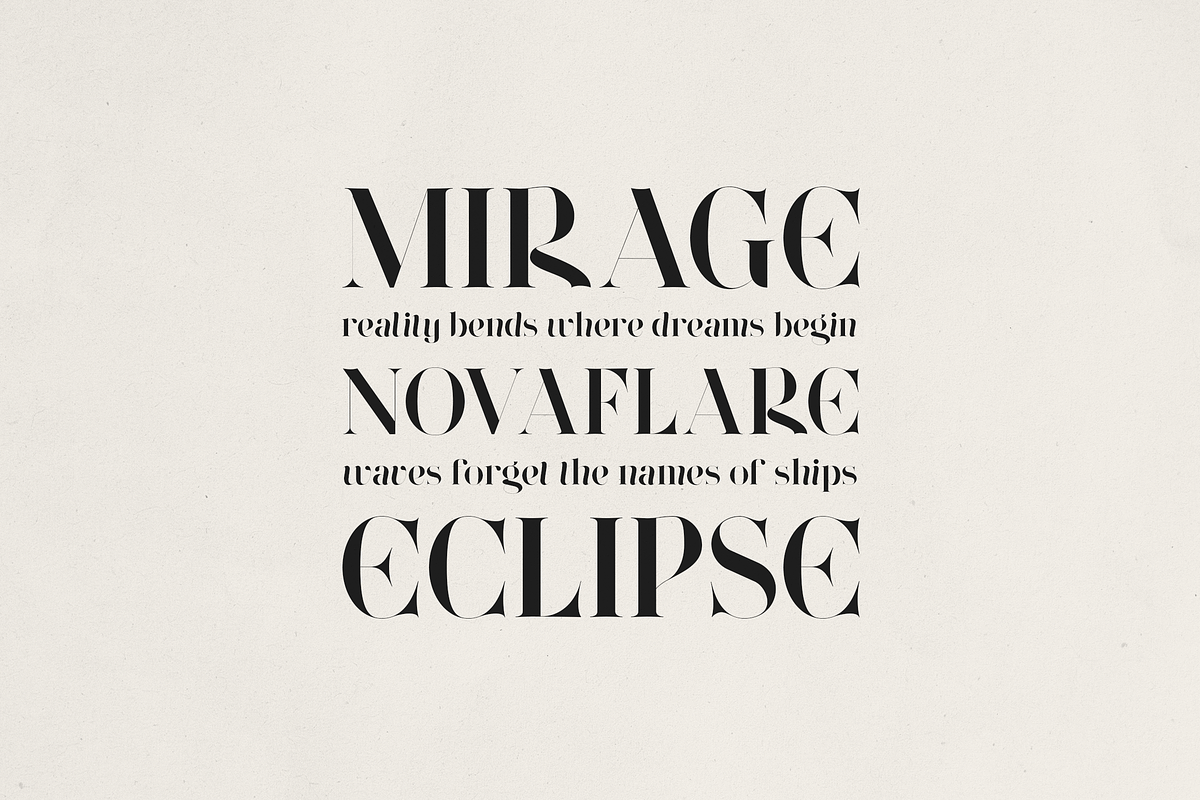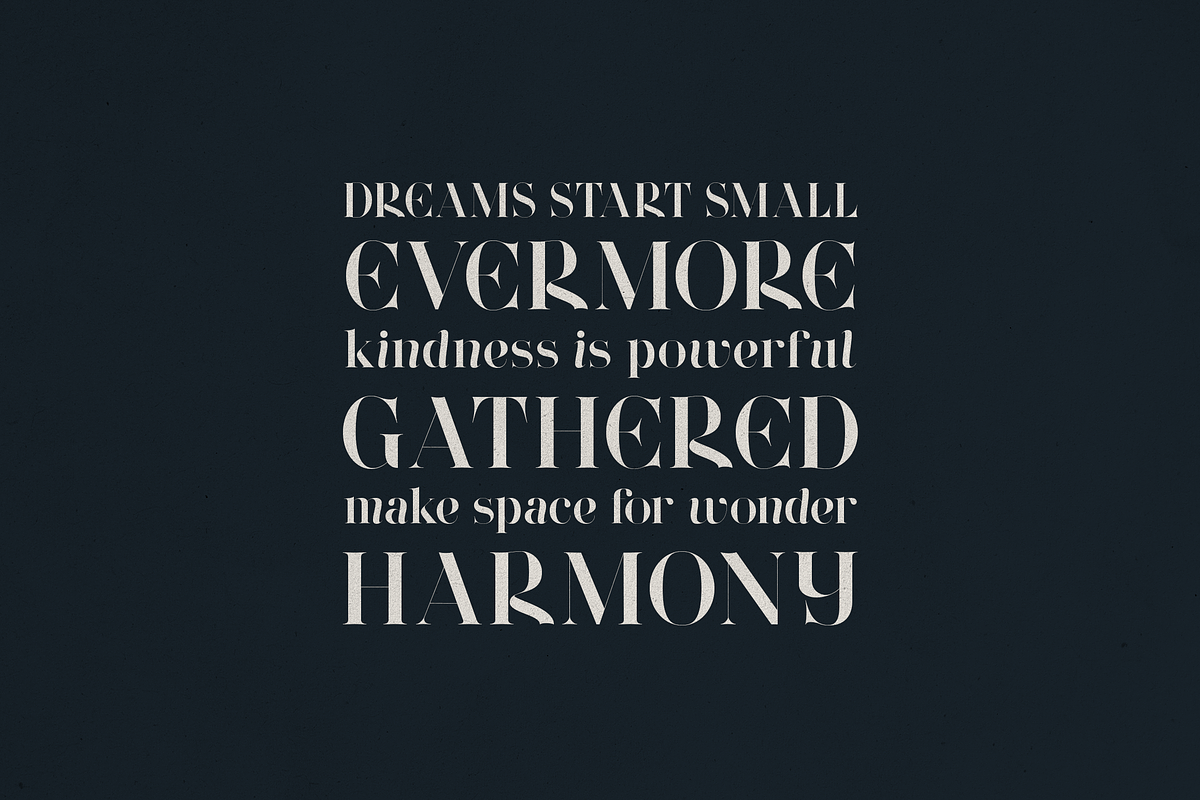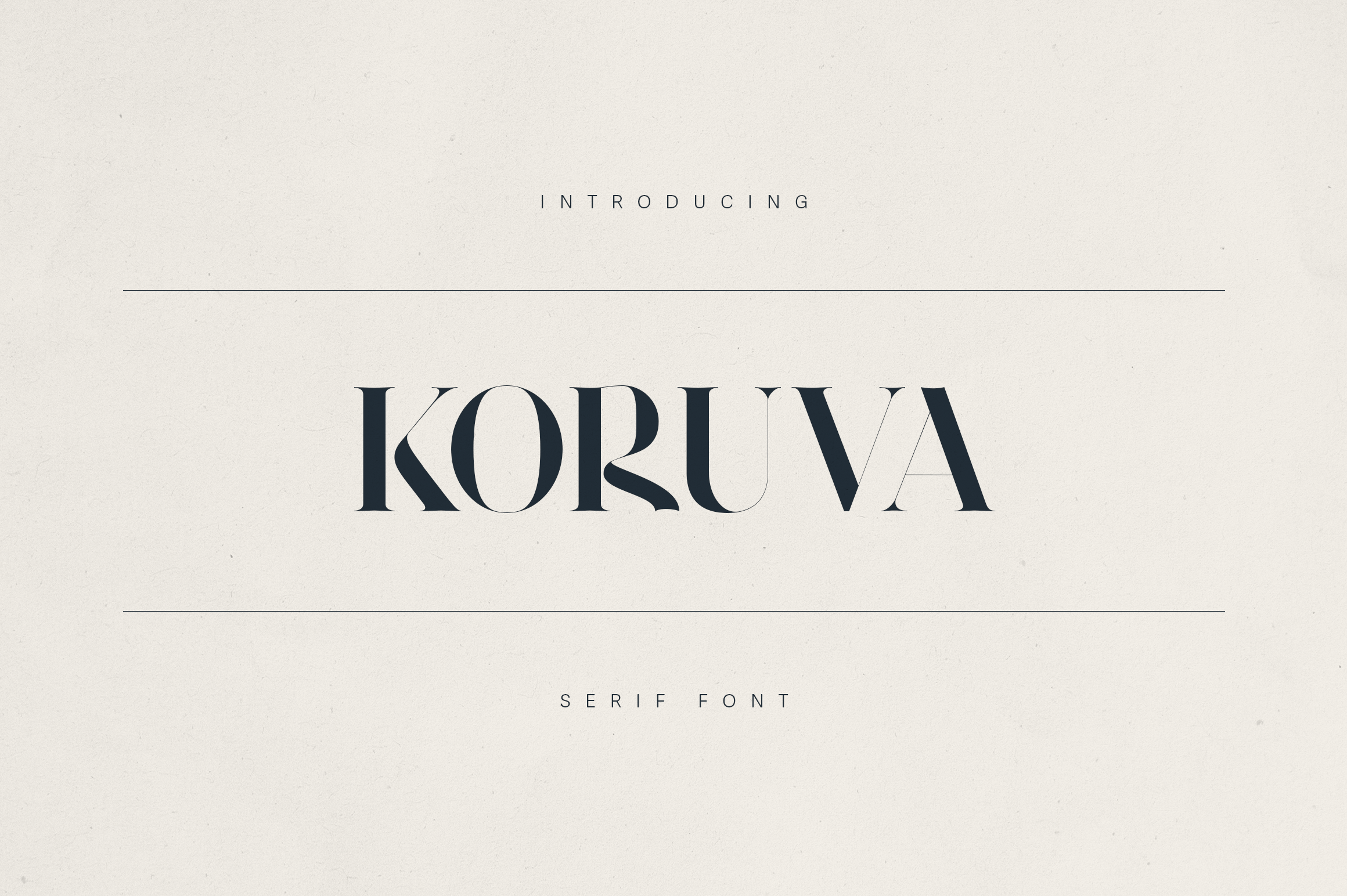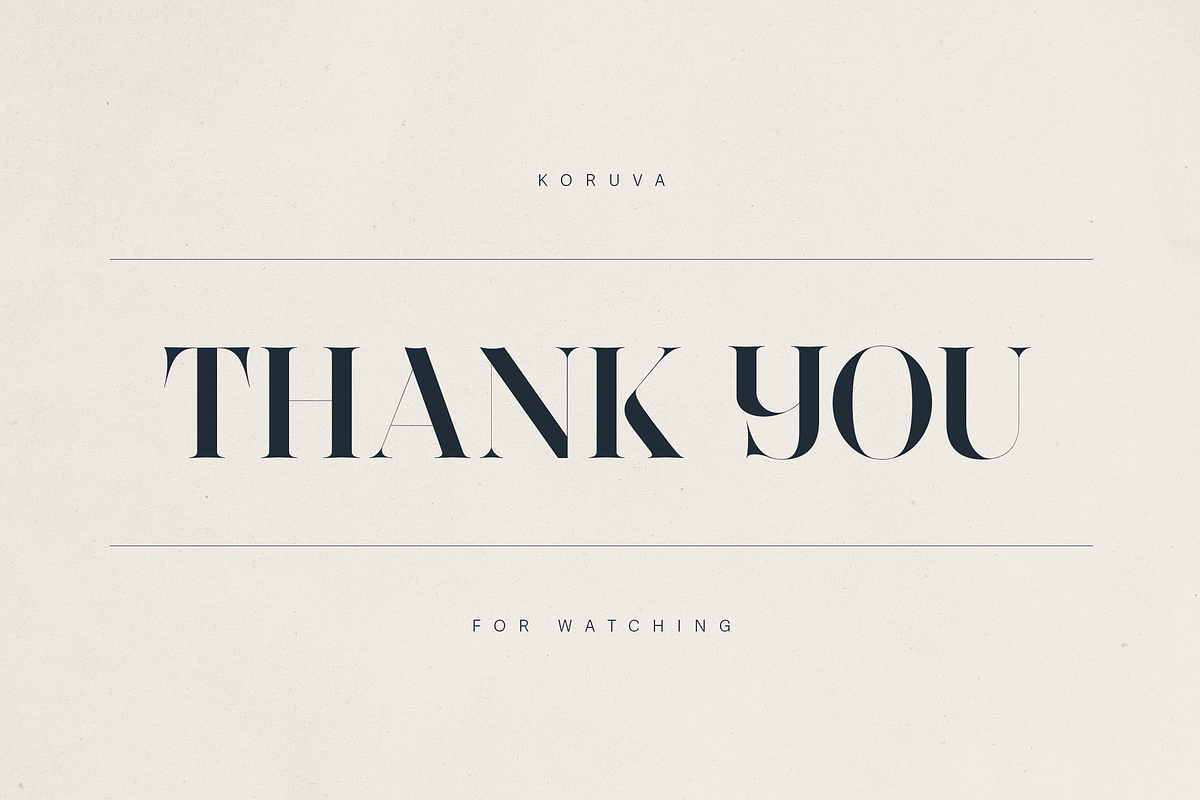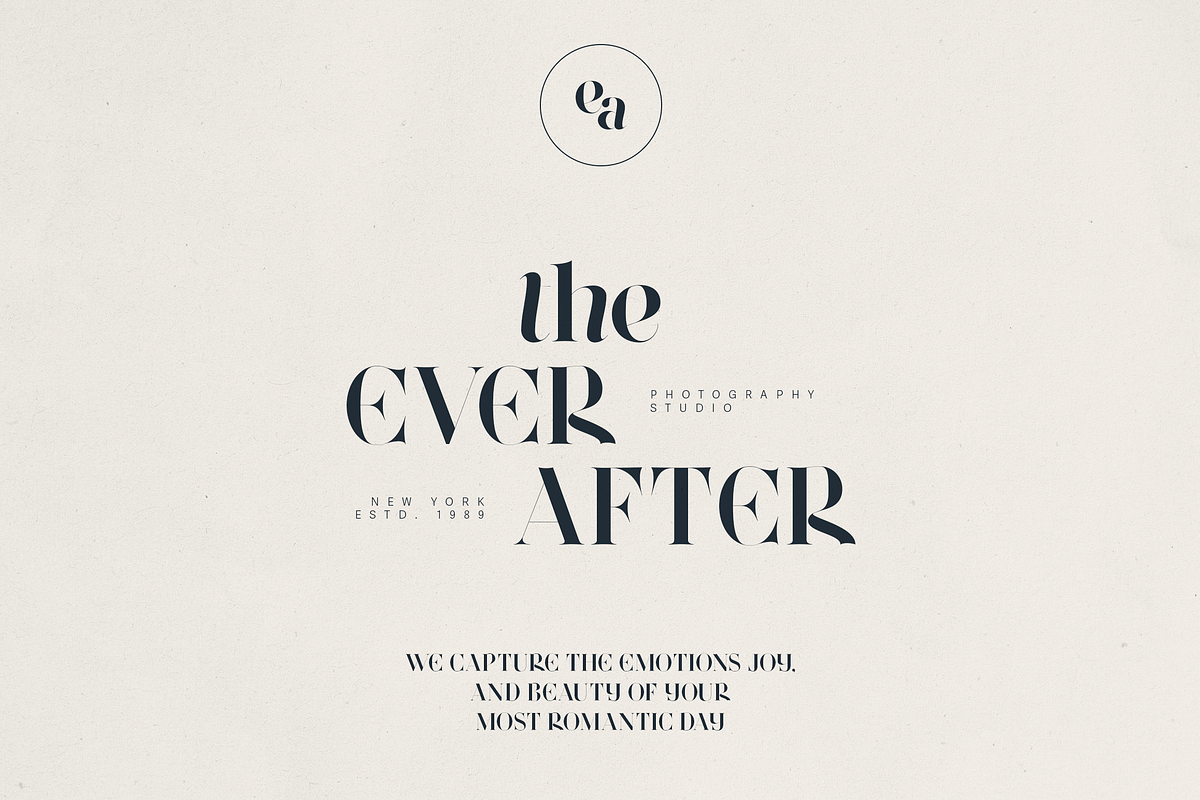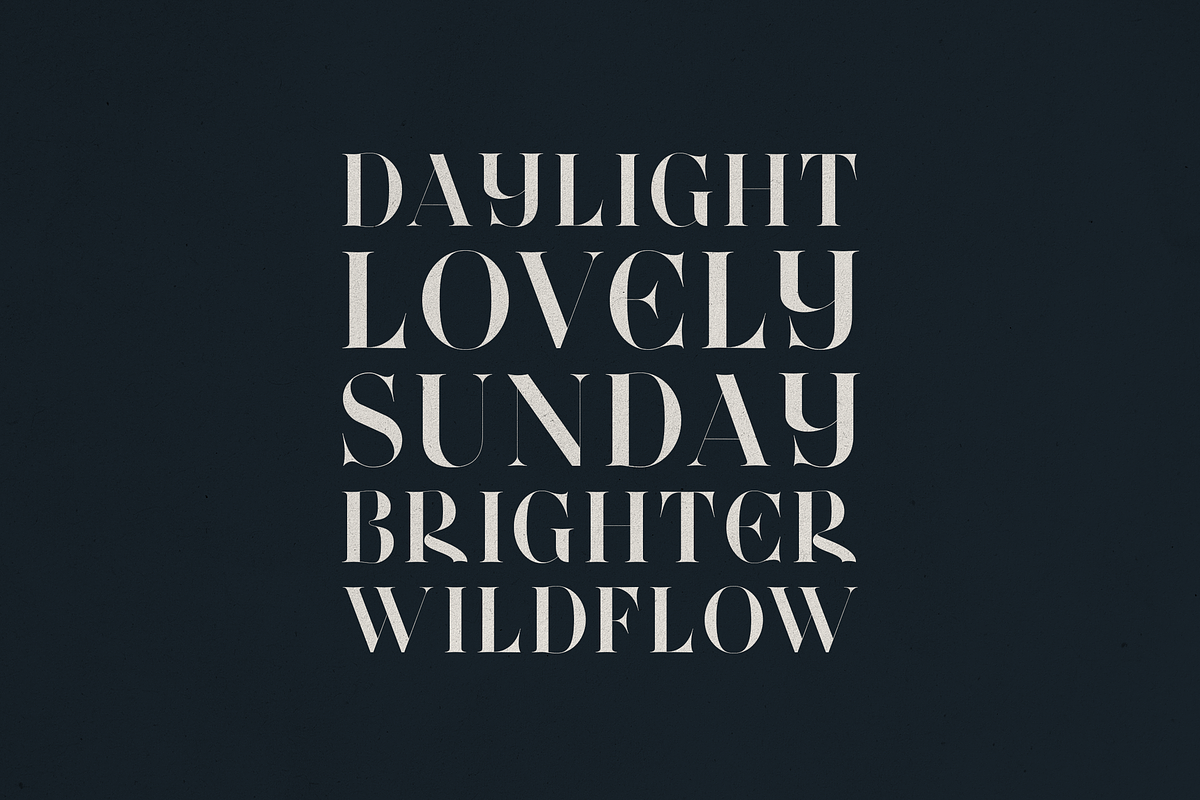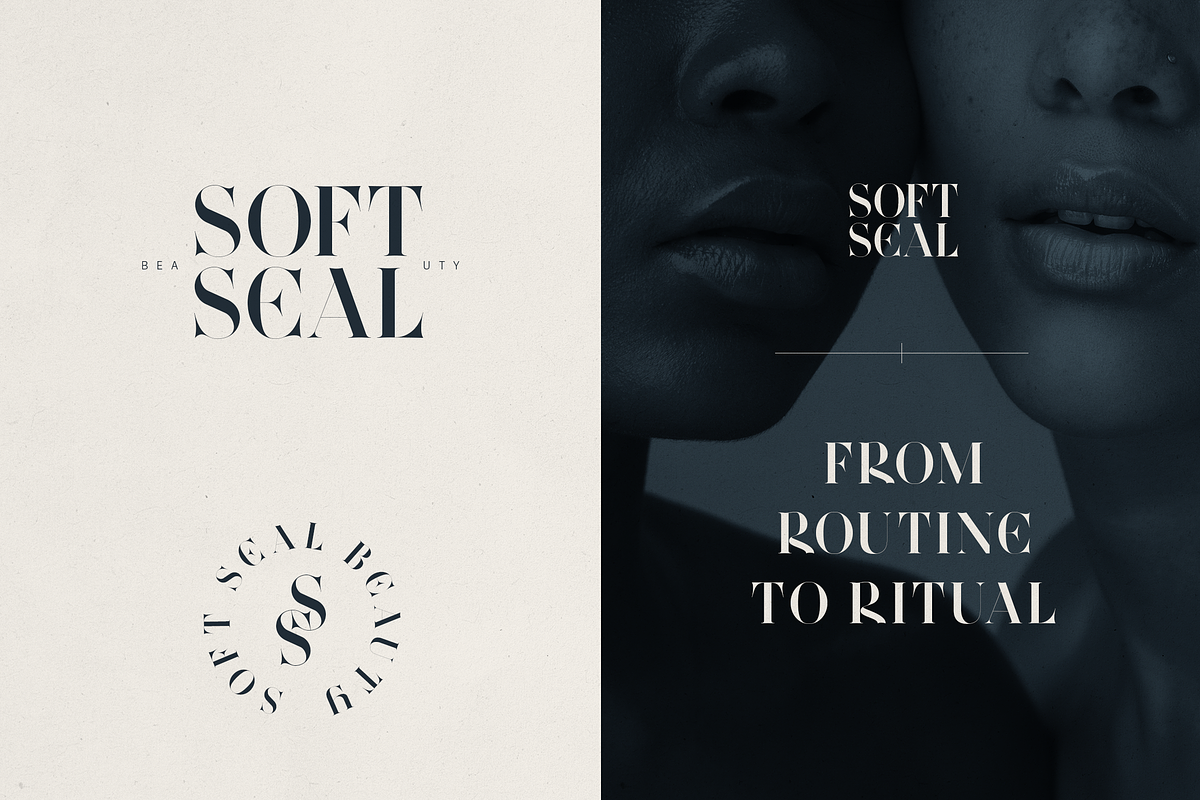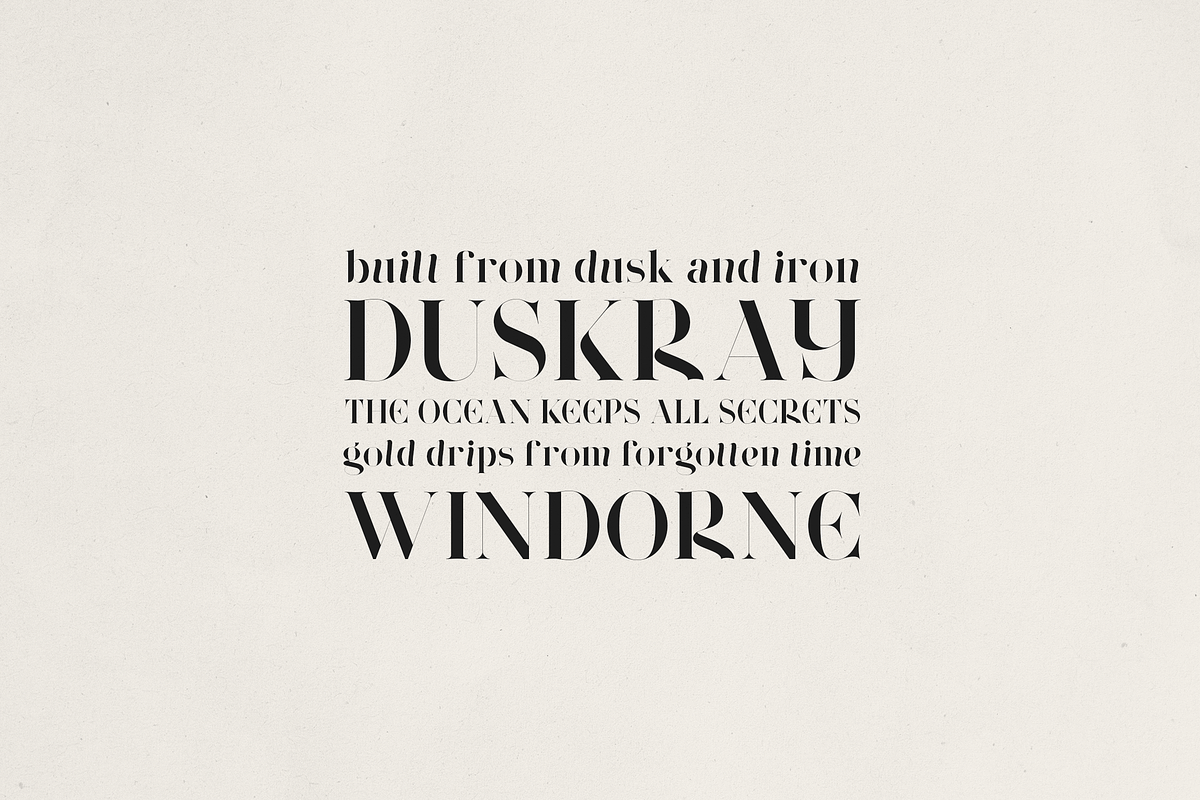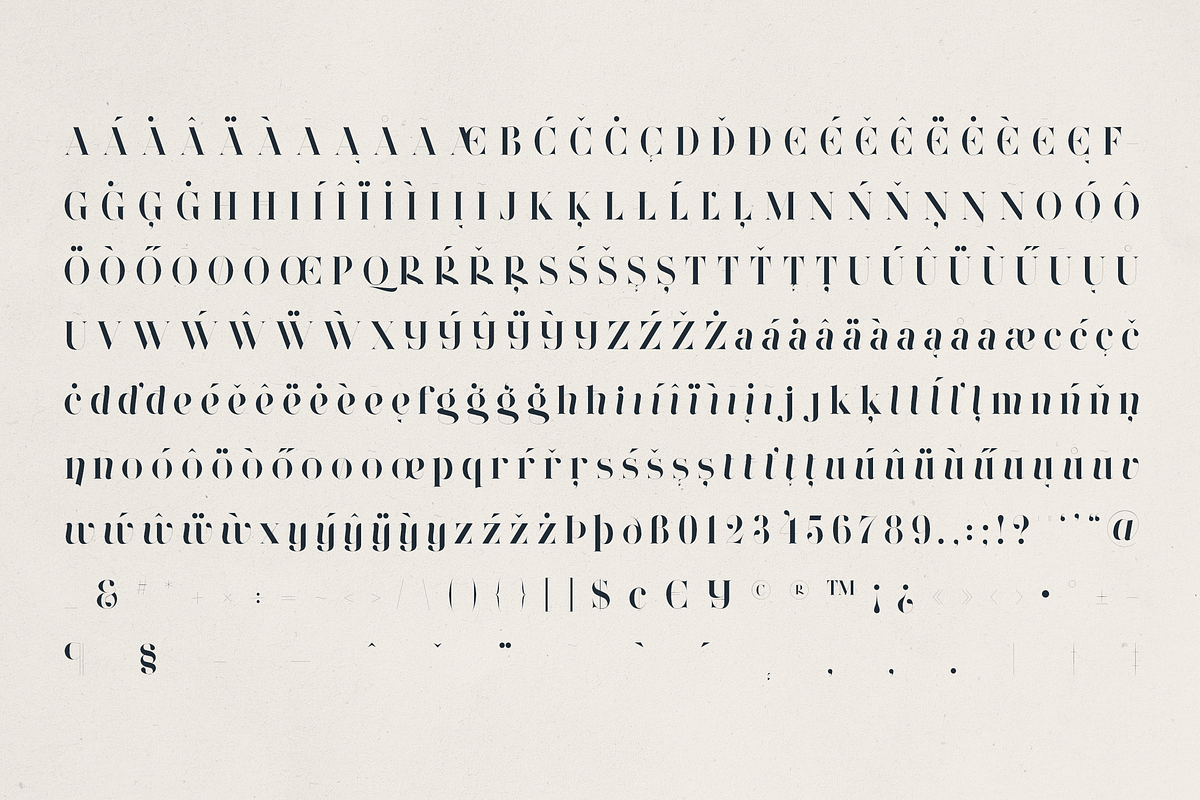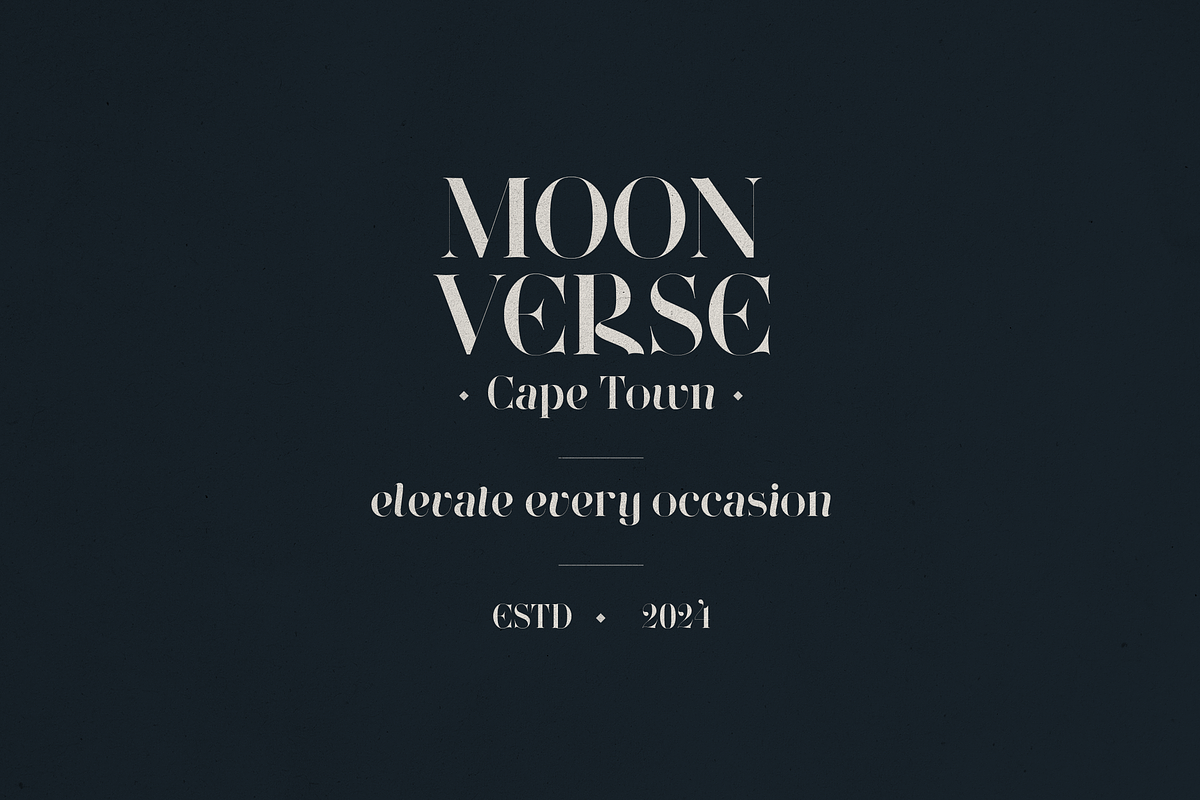
Koruva – Modern Serif Font
Meet Koruva – A Modern Serif with Sculptural Elegance
Koruva is a high-contrast serif typeface designed to make a bold yet graceful impression. With sleek curves, dramatic letterforms, and editorial flair, this font is perfect for branding, beauty, fashion, and lifestyle design. Whether you're crafting product packaging, a magazine spread, or a statement logo, Koruva brings refined personality to every letter.
Great for:
- Luxury branding
- Editorial headlines
- Beauty & skincare packaging
- Wedding studios & lifestyle blogs